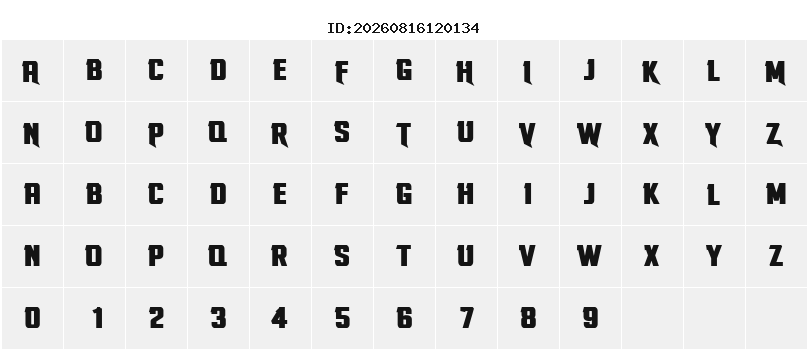
Stallions Preview
• Font Name: Stallions
• Full Font Name: Stallions
About Stallions.ttf
Stallions.ttf is a modern, elegant sans-serif font designed for ultimate readability and visual harmony. Perfect for branding, headlines, web design, and print materials.